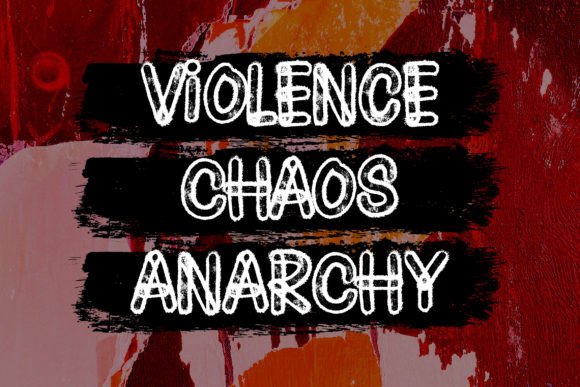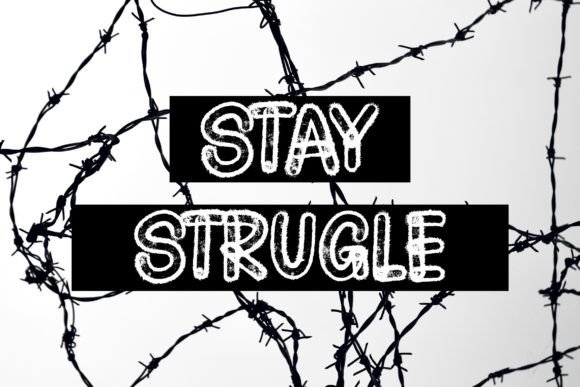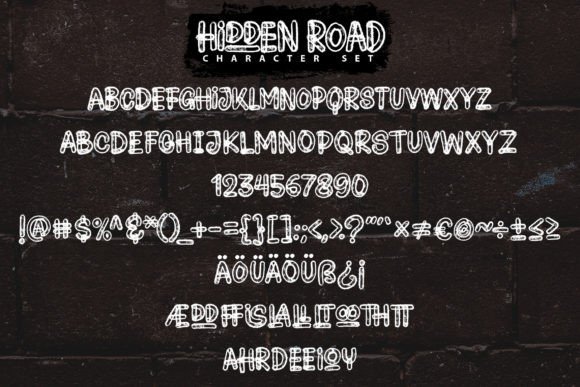
Introduction to Hidden Road Font
Hidden Road is a cool and unique handwritten display font.
Add it confidently to your projects and you will be amazed by the outcome generated .
Key Features of Hidden Road Font
Why Choose Hidden Road Font?
Hidden Road Font offers exceptional quality and versatility, making it a valuable addition to your design toolkit. Whether you’re creating for personal projects or commercial use, Hidden Road Font delivers professional results.